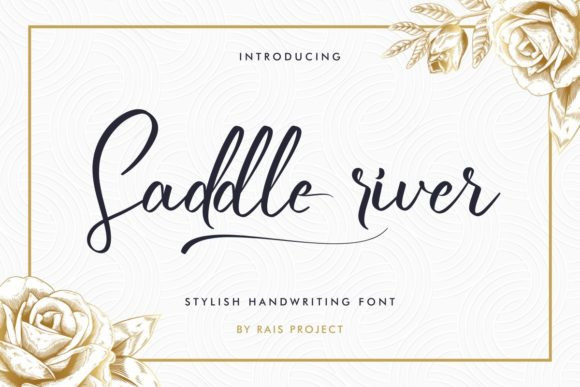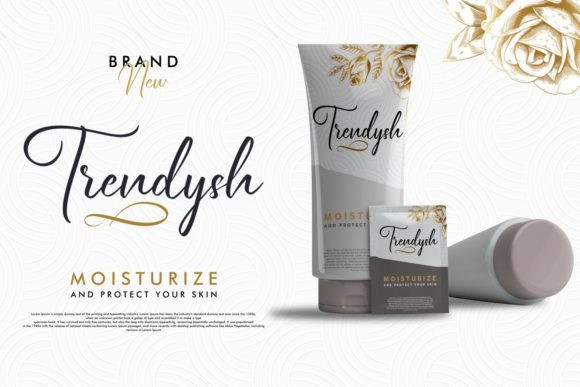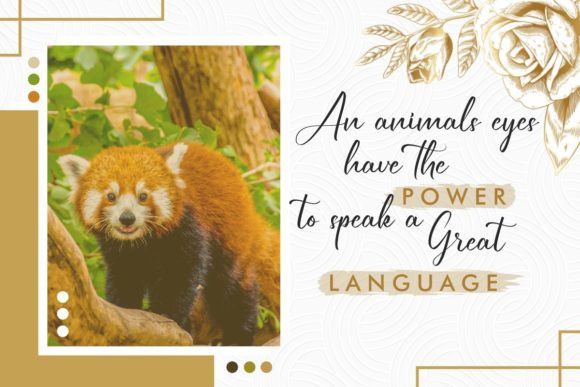
Saddle River Font
Saddle River is a lovely and delicate script font that exudes elegance and class. This font was particularly crafted for those who need a beautiful and refreshing look to their designs. Saddle River is PUA encoded which means you can access all of the glyphs and swashes with ease!